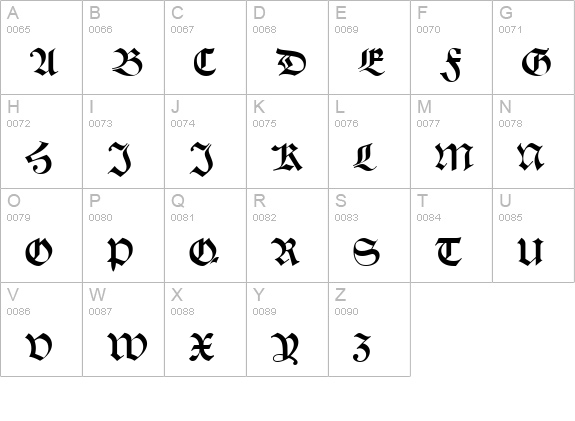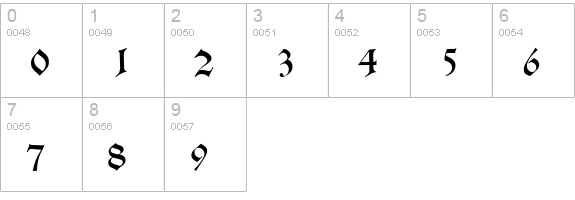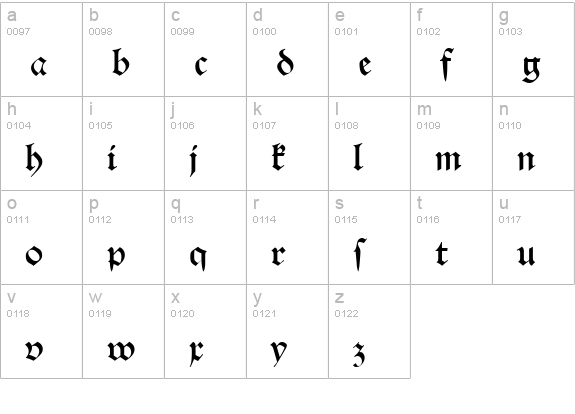
Weimar font is a beautifully designed typeface that exudes elegance and sophistication. With its classic yet modern look, Weimar is perfect for a wide range of design projects, from branding to packaging to editorial design. The sleek lines and clean curves of this font make it a versatile choice for both print and digital applications. The best part? Weimar font is available for free download at FontsMarket.com. This means you can add a touch of class to your projects without breaking the bank. Whether you're a designer looking for a new go-to font or just someone who appreciates quality typography, Weimar is sure to impress with its timeless appeal. Download Weimar font today and elevate your designs with this stylish and versatile typeface.